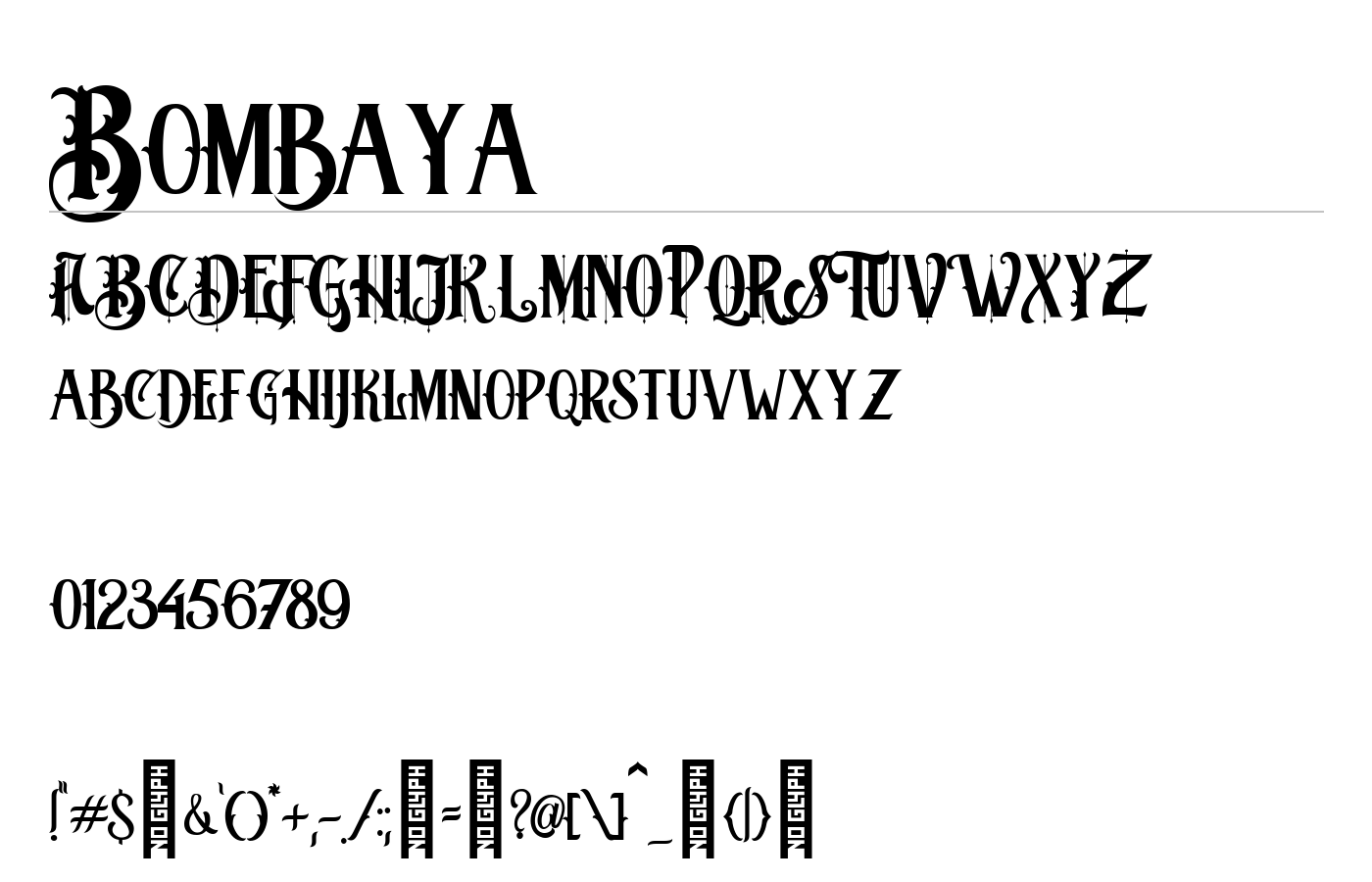
Bombaya is a bold serif font with a distinctive blackletter influence, featuring dramatic contrast between thick and thin strokes and decorative, sharp serifs that evoke a Gothic, vintage look. Its tall, condensed letterforms and ornate details lend an elegant yet powerful personality, making it ideal for eye-catching headlines, logos, and branding that wants to convey tradition with a strong visual impact. This font works best in designs aiming for a historic or luxurious feel, where bold, decorative lettering is needed to stand out.
Bombaya Font
About Bombaya Font